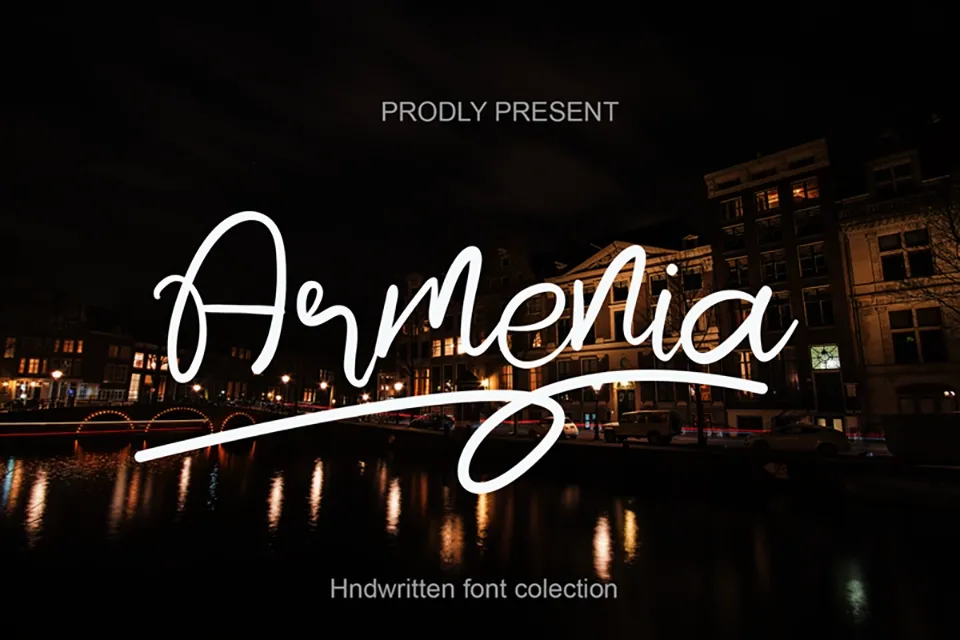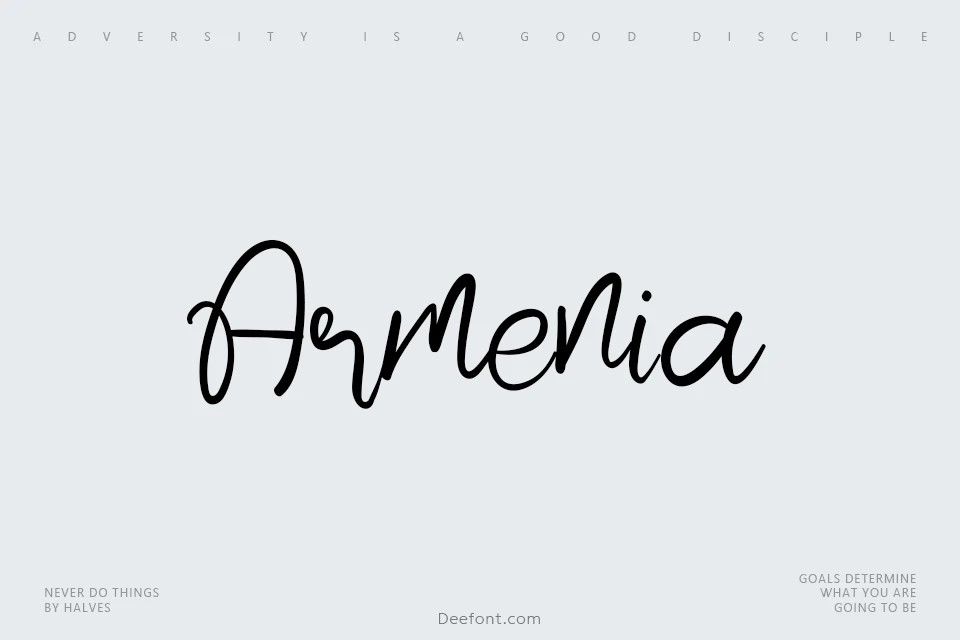
Armenia Font
Armenia Font is a contemporary handwritten typeface that masterfully combines modern aesthetics with a personal and stylish touch. Its classy calligraphic influence and fresh feel make it versatile for a wide range of creative ideas, from letterheads and titles to stationery. Please note, the font is free for personal use only and requires a license for any commercial purposes.